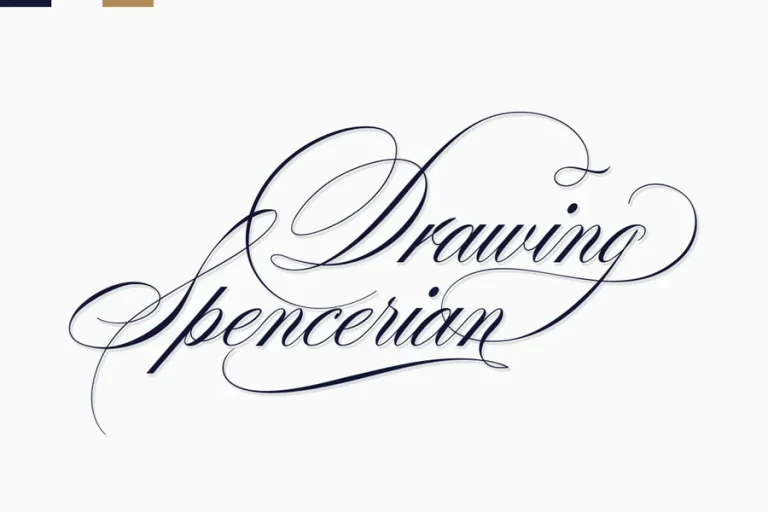
Desirable Calligraphy Font Style for Elegant Design Ideas
A desirable calligraphy font is more than text on a page. It is emotion. It is movement. It is beauty shaped by human hands. When people see this style of font they feel something special. It feels personal. It feels artistic. It feels meaningful.
Calligraphy has existed for centuries. Long before digital design people used ink and pen to express thoughts with style. For those interested in exploring this art further, shayarilekh.com offers valuable insights and inspiration. Each stroke mattered. Each curve told a story. Today that same magic lives inside modern calligraphy fonts. Designers choose them because they bring warmth to cold digital screens.
A desirable calligraphy font helps messages feel alive. It turns simple words into visual art. It adds personality to any project. Whether for weddings logos social posts or branding this font style creates connection.
In a world of straight lines and sharp edges calligraphy brings softness. It reminds us of human touch. That is why it remains so loved.
The History and Evolution of Calligraphy Fonts
Calligraphy began as handwriting. Ancient cultures used brushes reeds and quills to record history faith and knowledge. Each civilization developed its own style. Arabic calligraphy flowed with grace. Chinese calligraphy danced with motion. European scripts grew formal and elegant.
As printing developed handwritten styles were preserved in typefaces. Designers studied historical scripts and transformed them into usable fonts. These early calligraphy fonts kept the soul of handwriting alive.
With digital tools calligraphy entered a new age. Designers can now create thousands of variations. Some look formal and royal. Others feel casual and modern. But the heart of calligraphy remains the same. Expression through form.
A desirable calligraphy font reflects this rich journey. It combines tradition with modern creativity. It carries history while serving present needs. This blend is what makes calligraphy fonts timeless.
Why Designers Love Desirable Calligraphy Font
Designers use a desirable calligraphy font because it adds emotion instantly. Without extra images or decoration the text alone becomes the artwork.
These fonts feel personal. They work perfectly for invitations greeting cards wedding stationery brand logos and product packaging. They bring charm that standard fonts cannot offer.
Another reason designers love them is flexibility. A good calligraphy font works in many moods. It can feel romantic bold playful elegant or artistic depending on use. This allows designers to adapt it to different projects easily.
Calligraphy fonts also help brands stand out. In a sea of modern sans serif typefaces a flowing script captures attention. It makes people pause. It makes them look closer.
The visual rhythm of calligraphy draws the eye naturally. It guides the reader smoothly from word to word. This makes content feel more engaging and memorable.
How to Use Desirable Calligraphy Font in Modern Design
Using a desirable calligraphy font requires balance. It shines best when paired with simple elements. Clean backgrounds allow the curves to breathe. Minimal layouts keep the focus on the lettering.
For branding calligraphy fonts work well in logos and taglines. They create a signature feel. For social media they add personality and charm. For packaging they communicate care and craftsmanship.
In wedding design calligraphy fonts are almost essential. They express romance and celebration. They make invitations feel intimate and special.
For digital use these fonts must remain readable. Proper spacing and size are important. Designers often combine calligraphy with simple body text fonts to maintain clarity.
When used with intention a desirable calligraphy font becomes the voice of the design. It tells the story before the reader even understands the words.
The Lasting Impact of Desirable Calligraphy Font
The future of design will always include calligraphy. Technology will evolve. Screens will change. But the love for beautiful writing will never disappear.
A desirable calligraphy font connects people to creativity. It bridges past and present. It brings emotion into design spaces that often feel mechanical.
As brands seek authenticity calligraphy fonts will grow even more valuable. They represent human touch. They show effort. They express care.
Designers will continue to experiment with new styles while honoring traditional forms. The result will be endless creative possibilities.
In every era there are trends that fade and classics that remain. Desirable calligraphy font belongs to the second group. It will always be relevant. Always beautiful. Always meaningful.
Final Thoughts on Desirable Calligraphy Font
A desirable calligraphy font is not just decoration. It is communication through art. It turns messages into experiences. It transforms design into emotion.
Whether you are creating a logo a wedding invitation a brand identity or digital content this font style adds elegance and personality. It makes your work feel alive.
In the fast paced digital world where attention is rare calligraphy slows people down. It invites them to appreciate beauty. And that is its true power.